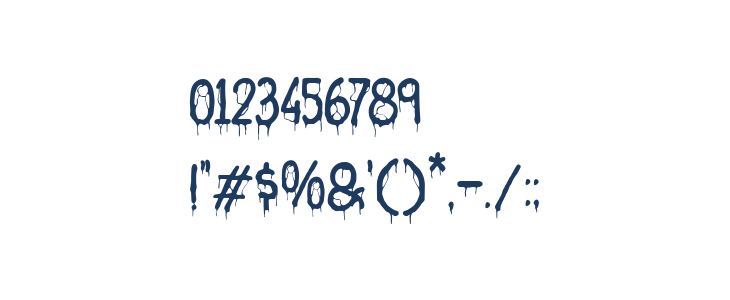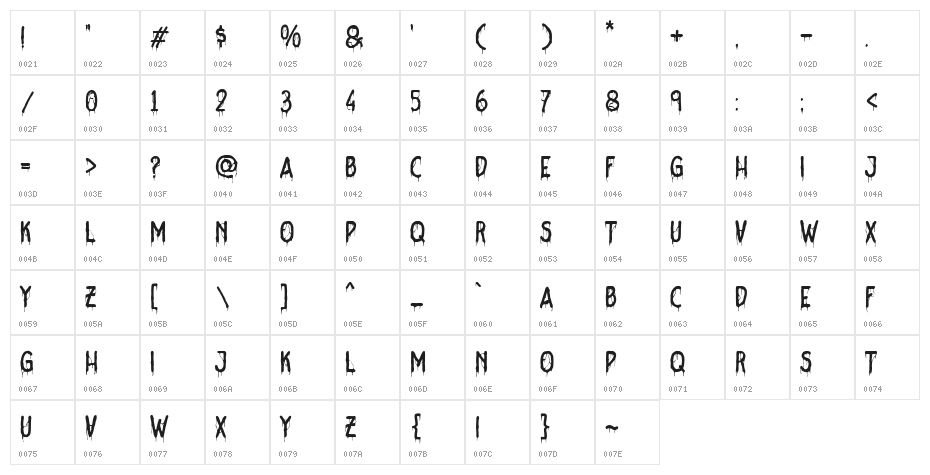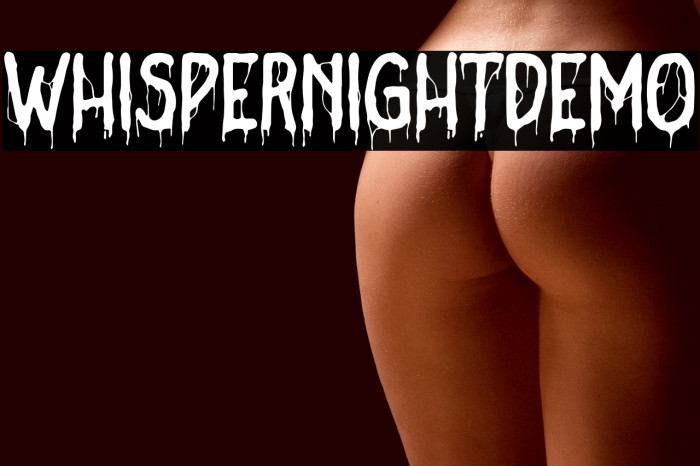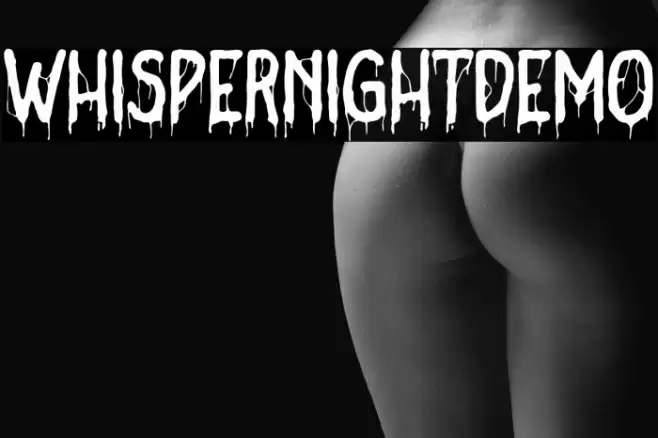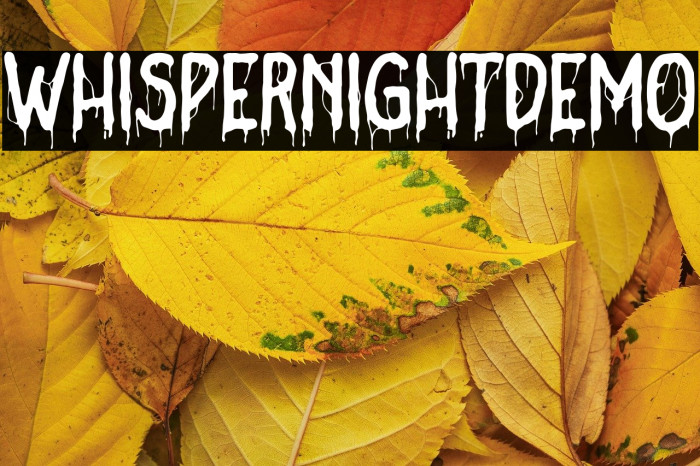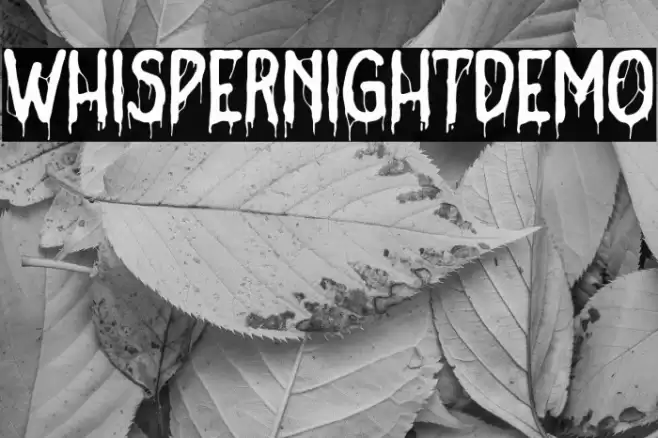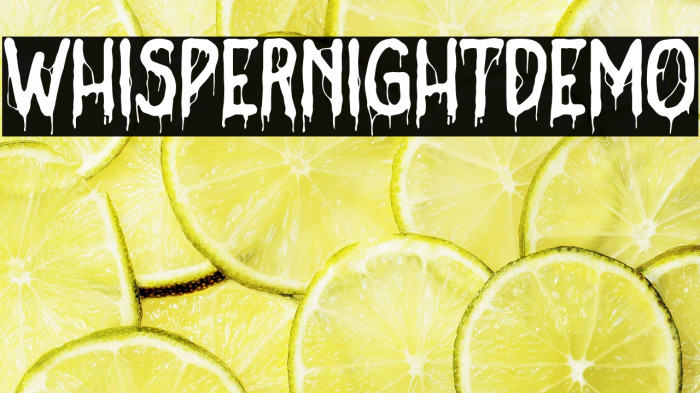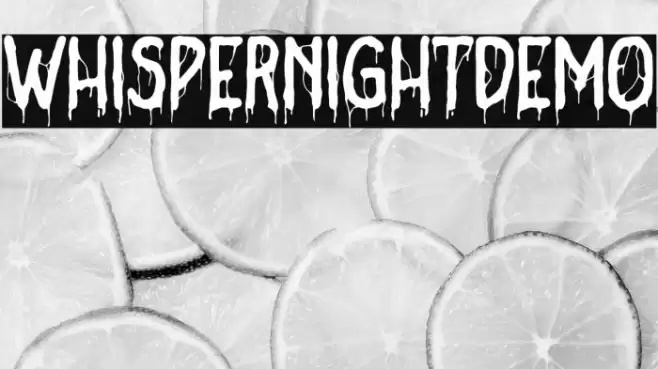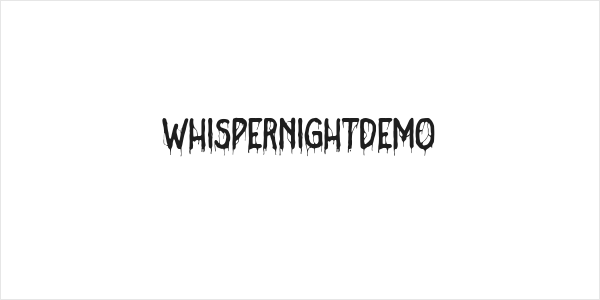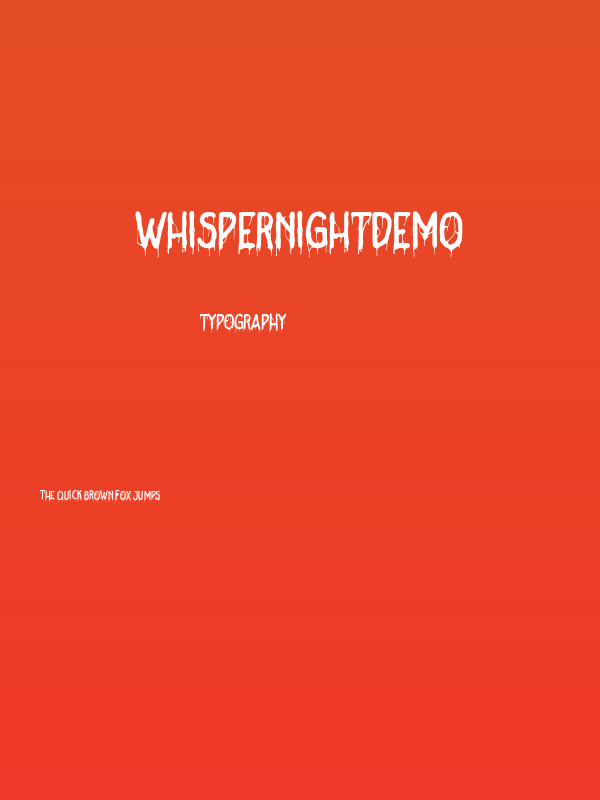
WhisperNightDemo Font
WhisperNightDemo Description
This font features a unique, dripping effect that gives it a haunting and eerie appearance, reminiscent of melting wax or dripping paint. The characters are bold and slightly irregular, adding to the unsettling aesthetic. The uppercase and lowercase letters maintain a consistent style, with each character appearing as if it's slowly melting. This font is perfect for creating a spooky or horror-themed design, making it ideal for Halloween projects or any creative work that requires a chilling atmosphere. The numbers and special characters are designed with the same dripping effect, ensuring a cohesive look across all text elements.
| Proposed Projects | Ideal for Halloween invitations, horror movie posters, haunted house flyers, and themed event branding. |